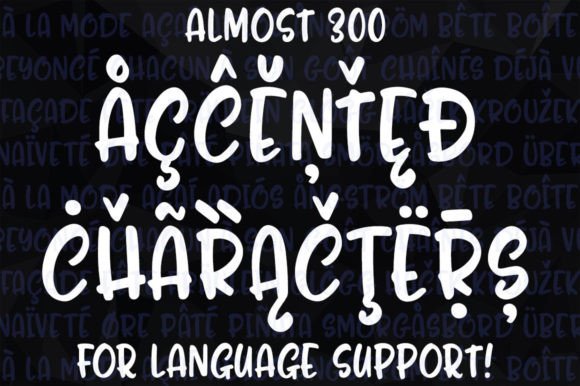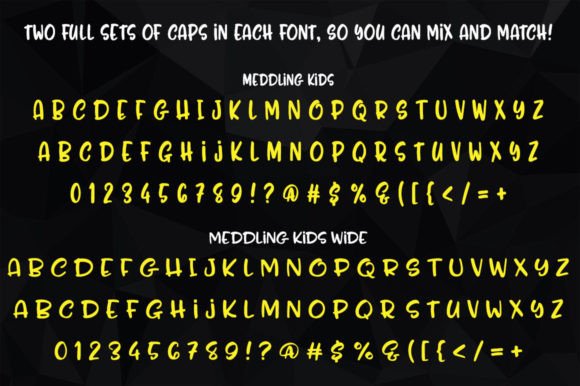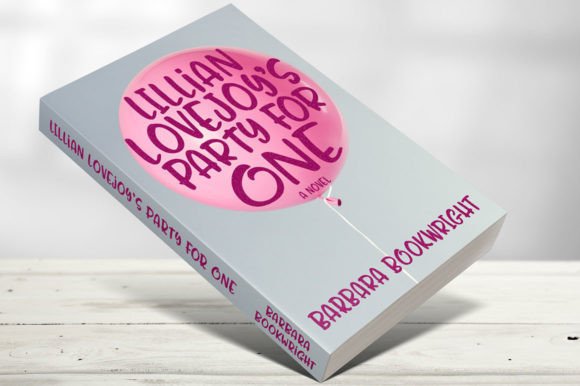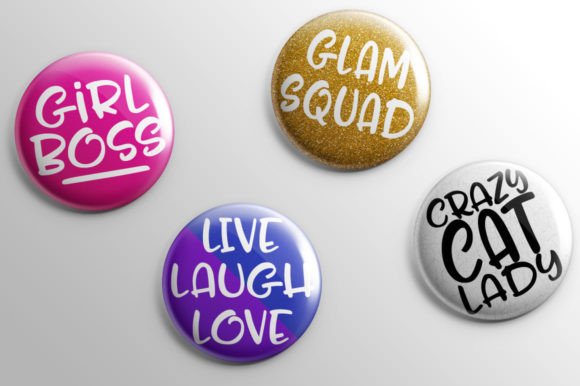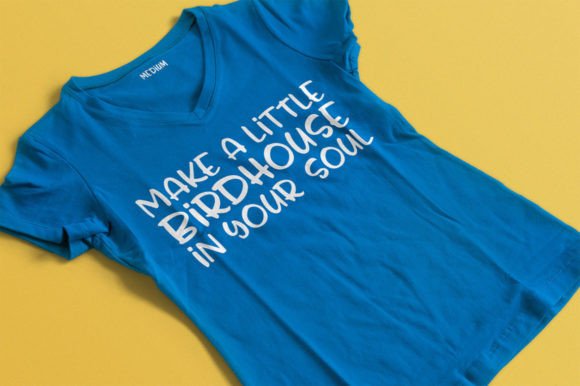
Introduction to Meddling Kids Font
Meddling kids are usually the bane of one’s existence, especially when they drive around in a groovy van solving mysteries with their talking dog.
But now they can be fun helpers for all your crafting needs This is a double-uppercase handwriting font (two sets of uppercase letters, one set mapped to the uppercase and one to the lowercase) so you can mix and match letters within a word.
Key Features of Meddling Kids Font
Why Choose Meddling Kids Font?
Meddling Kids Font offers exceptional quality and versatility, making it a valuable addition to your design toolkit. Whether you’re creating for personal projects or commercial use, Meddling Kids Font delivers professional results.